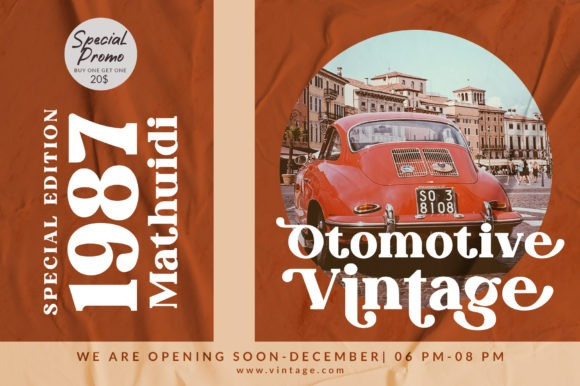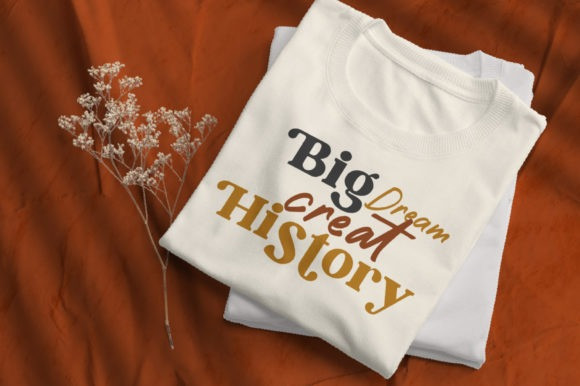
The Morille Font
The Morille Font is a bold and assertive serif font. It is PUA encoded which means you can access all of the glyphs and swashes with ease! Add it confidently to your projects, and you will love the results.